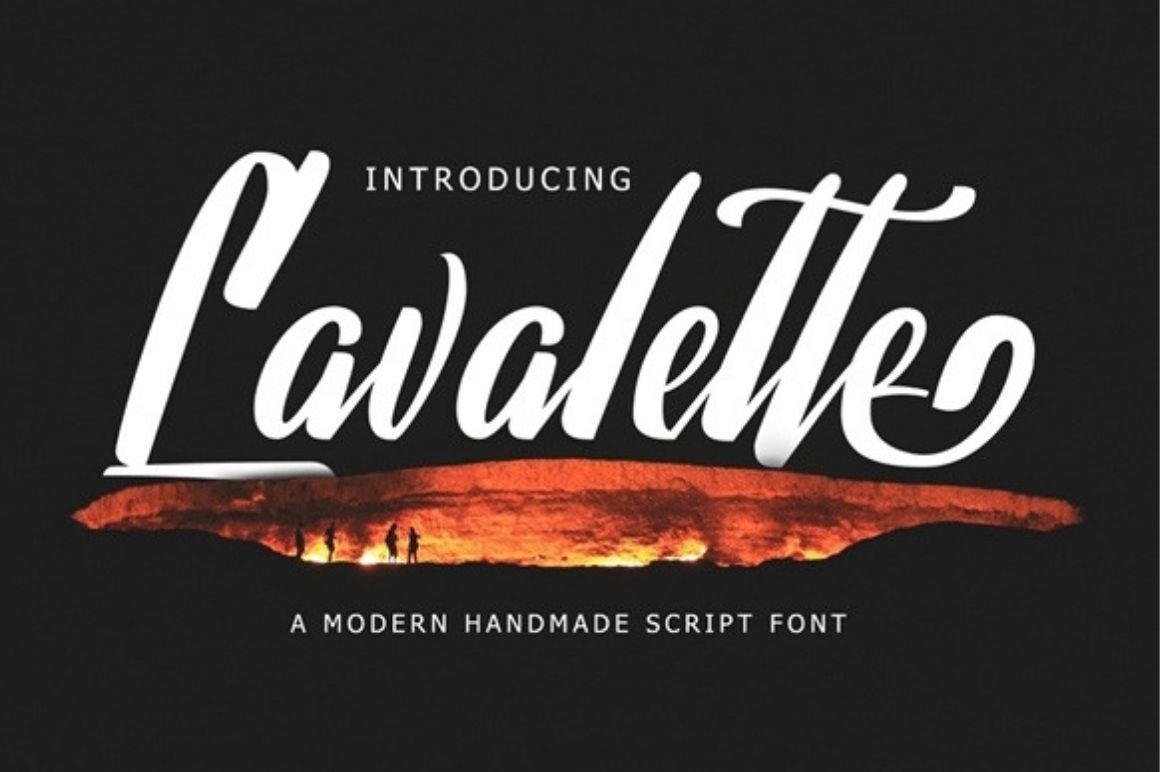
Lavalette Free Font
Lavalette is a modern handmade script font that is perfect for titles and headlines. This beautiful font script is perfect for company logo, greetings, invitation, branding, poster, flyers, book cover, quotes, etc.
Lavalette – Free Handmade Script Font
Perfect for titles and headlines